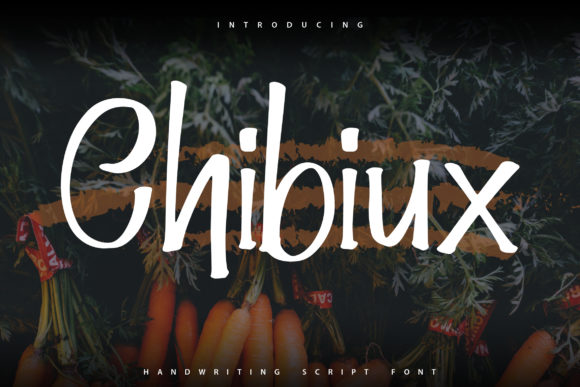
The Sweet Spot: Discovering the Chibiux Font
I’ll never forget the moment I stumbled upon the perfect font for a project. I was working on a whimsical branding campaign for a children’s toy company, and my designer brain was screaming for something that captured the essence of playfulness and friendliness. That’s when I met Chibiux – a sweet and charming handwritten font that instantly won my heart. In this article, I’ll share my love for Chibiux, its unique features, and how you can make the most of it in your designs.
First Impressions: What I Love About Chibiux
Chibiux is more than just a pretty font; it’s a versatile design tool that can elevate a wide range of projects. Here are some things that make it stand out:
- ✨ Unique and natural style: Chibiux has a distinct handwritten feel that’s both organic and eye-catching.
- ✅ PUA encoded: This means you can easily access all the glyphs and swashes, giving you endless creative possibilities.
- 💫 Imagination-friendly: Whether you’re designing for kids or adults, Chibiux’s friendly vibe makes it an excellent choice for various themes and styles.
The Not-So-Perfect: A Few Quirks
No font is perfect, and Chibiux has a few minor limitations:
- 🤔 Some characters might be a bit too ornate: Depending on your design, a few letters might be too decorative for certain projects. Experiment with different sizes and combinations to find the right balance.
- ⚠️ Glyph compatibility: While Chibiux is PUA encoded, some platforms might not support all the glyphs and swashes. We’ll explore how to overcome this in the next section.
The Story Behind Chibiux
Chibiux was created with the intention of capturing the essence of childhood wonder and playfulness. Its designer aimed to craft a font that would inspire creativity and bring a smile to people’s faces. Whether you’re working on a project for kids or simply want to add some whimsy to your design, Chibiux is an excellent choice.
Chibiux is a delightful font that can add a touch of whimsy and friendliness to your designs. With its PUA encoding, natural style, and OpenType features, it’s an excellent choice for designers, crafters, and creative hobbyists alike. Experiment with Chibiux today and unlock a world of creative possibilities!